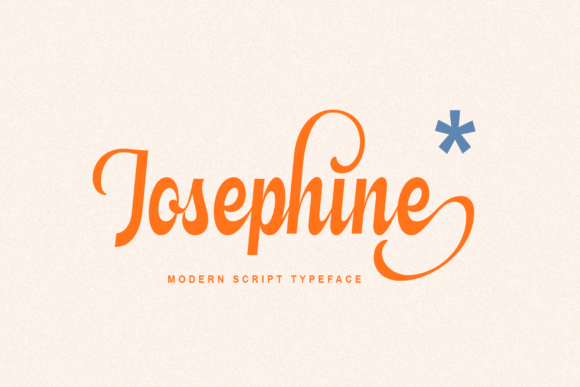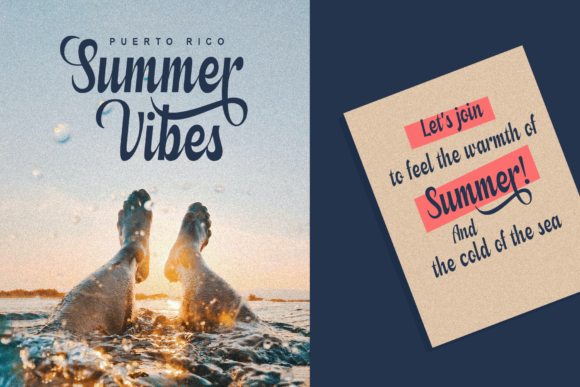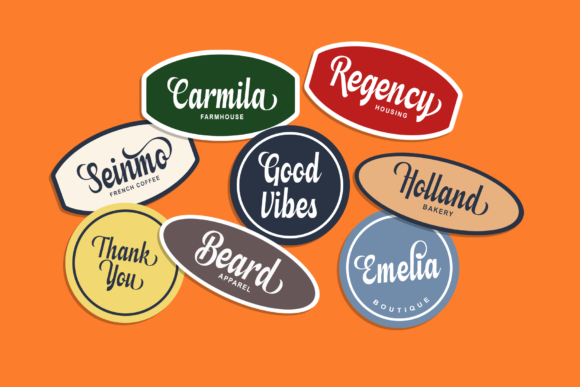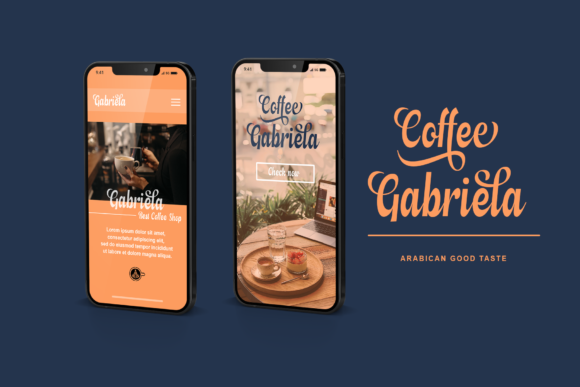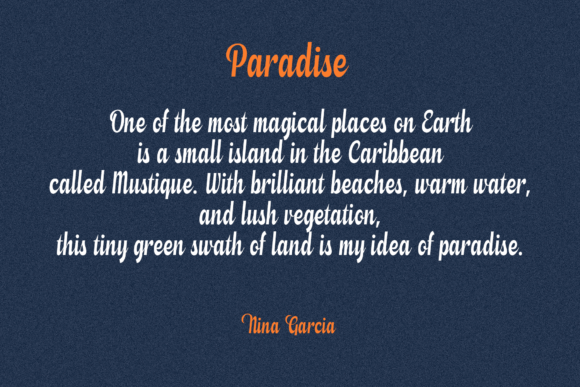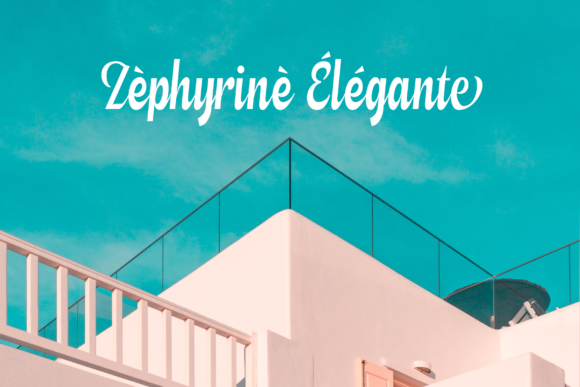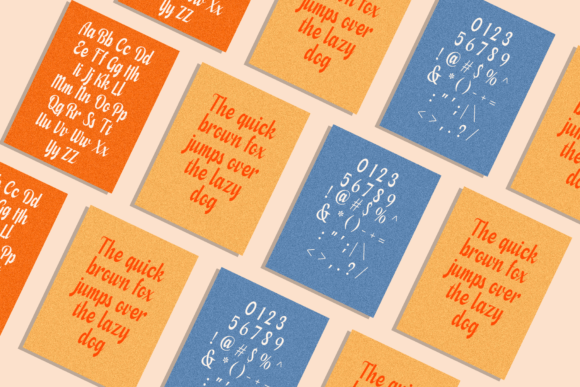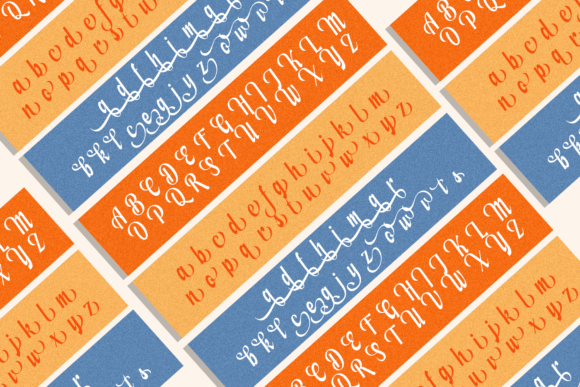
Josephine Font
About Josephine Font
Josephine is a chic, refined script font that emanates sophistication and elegance. Its stylish alternates and ligatures make this font the perfect match for any project.